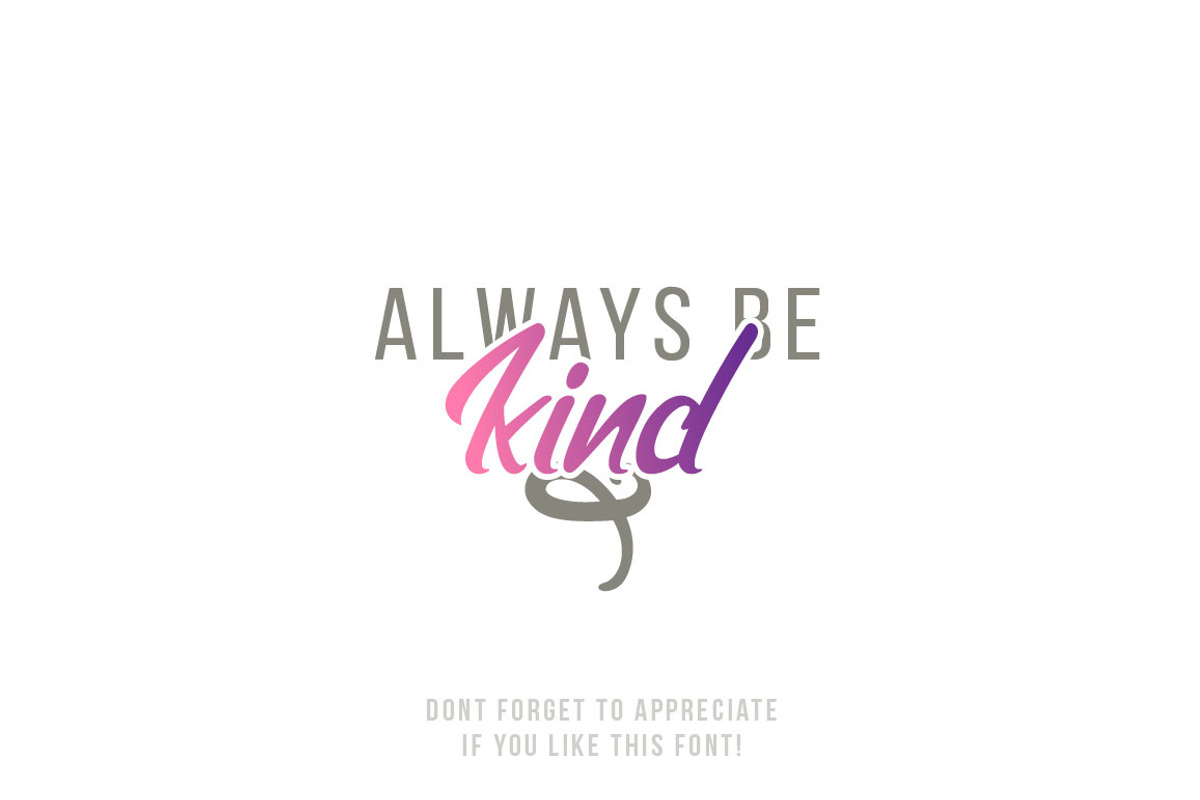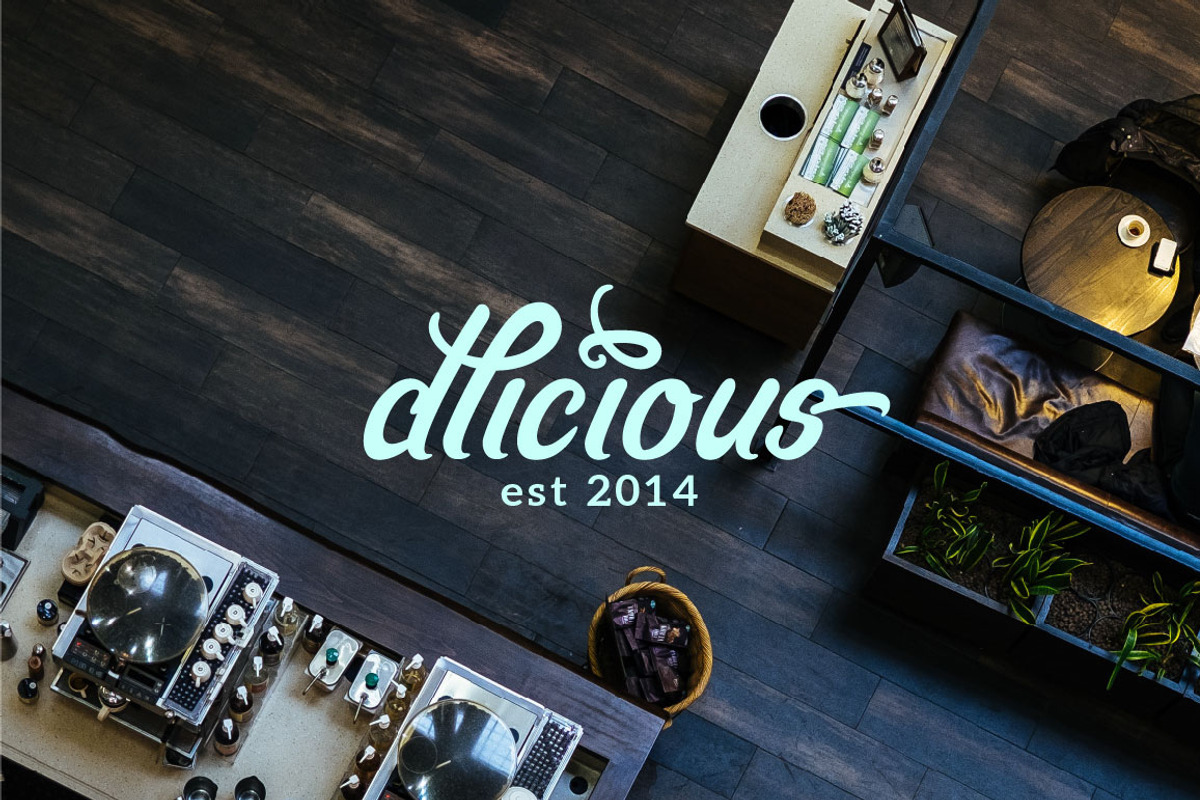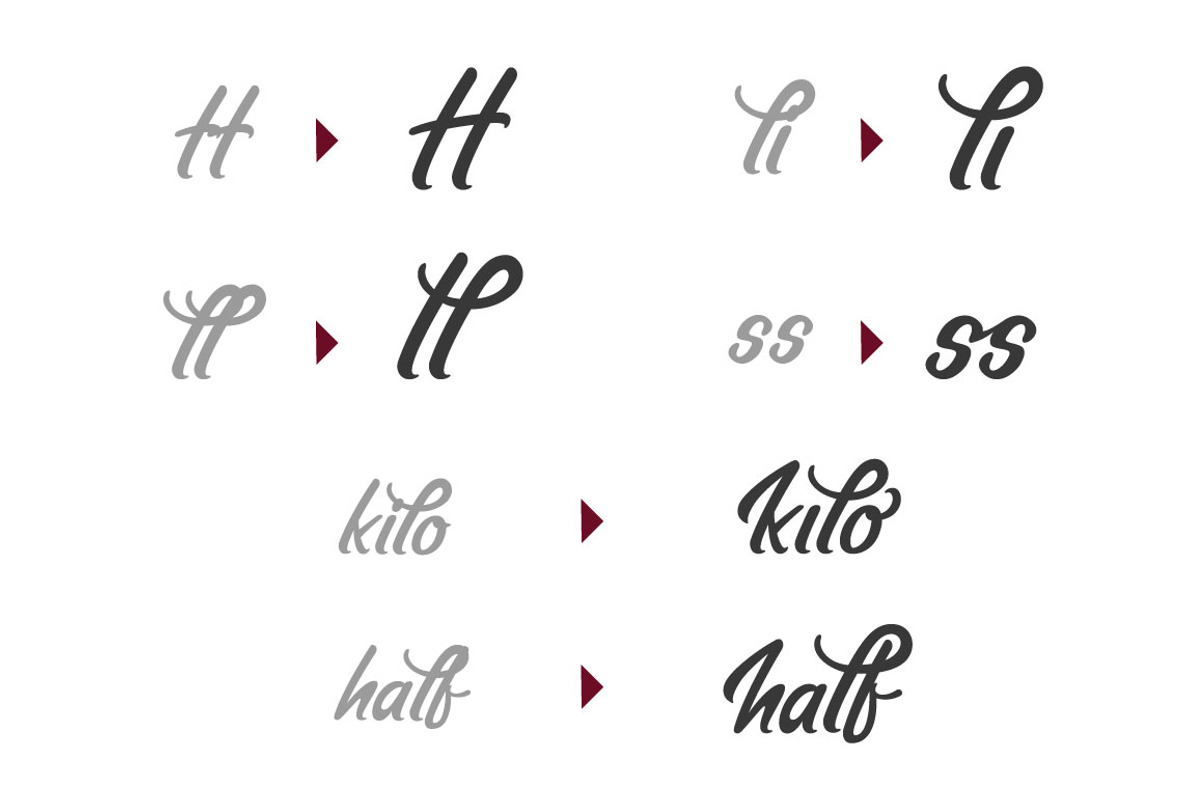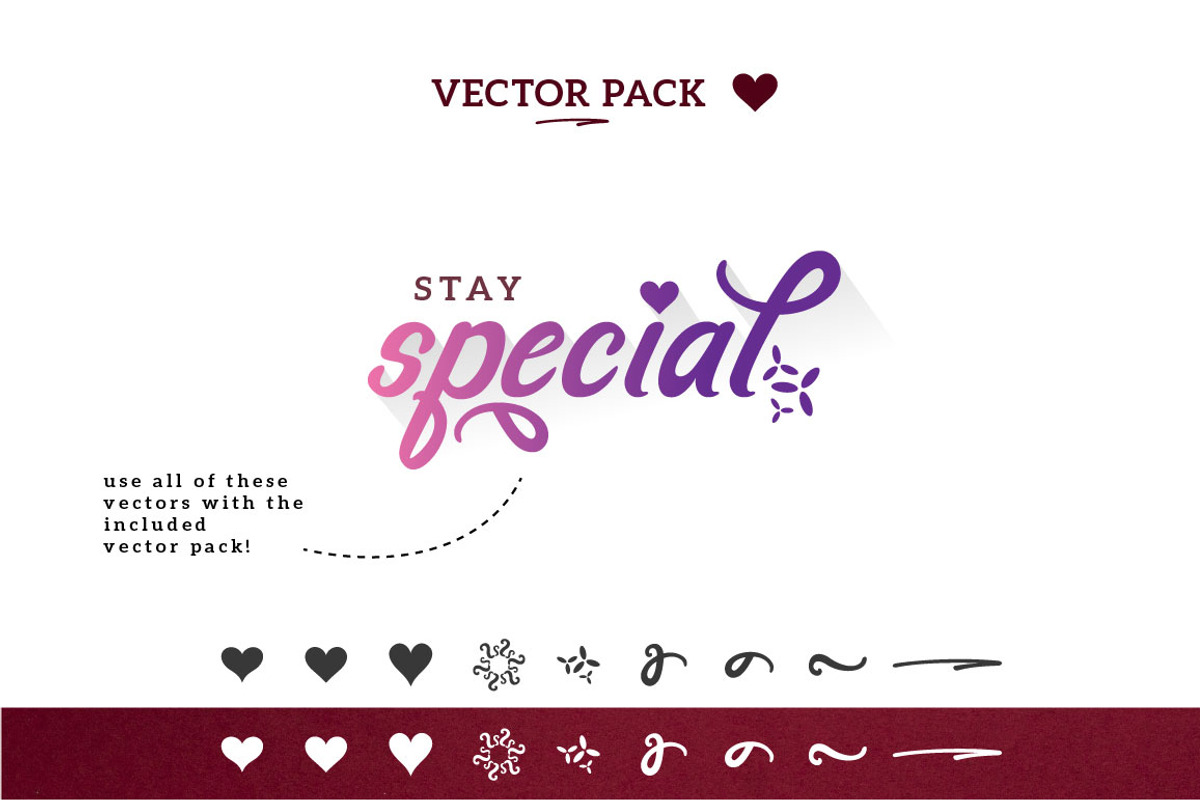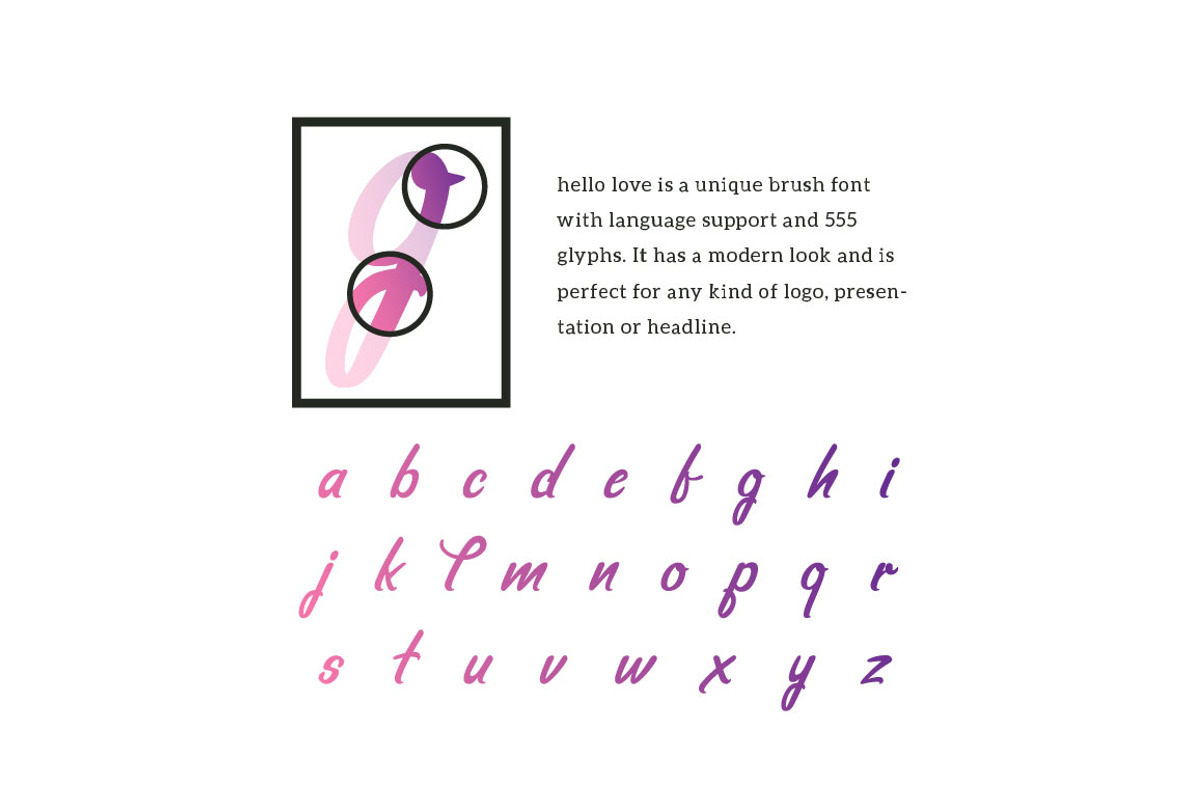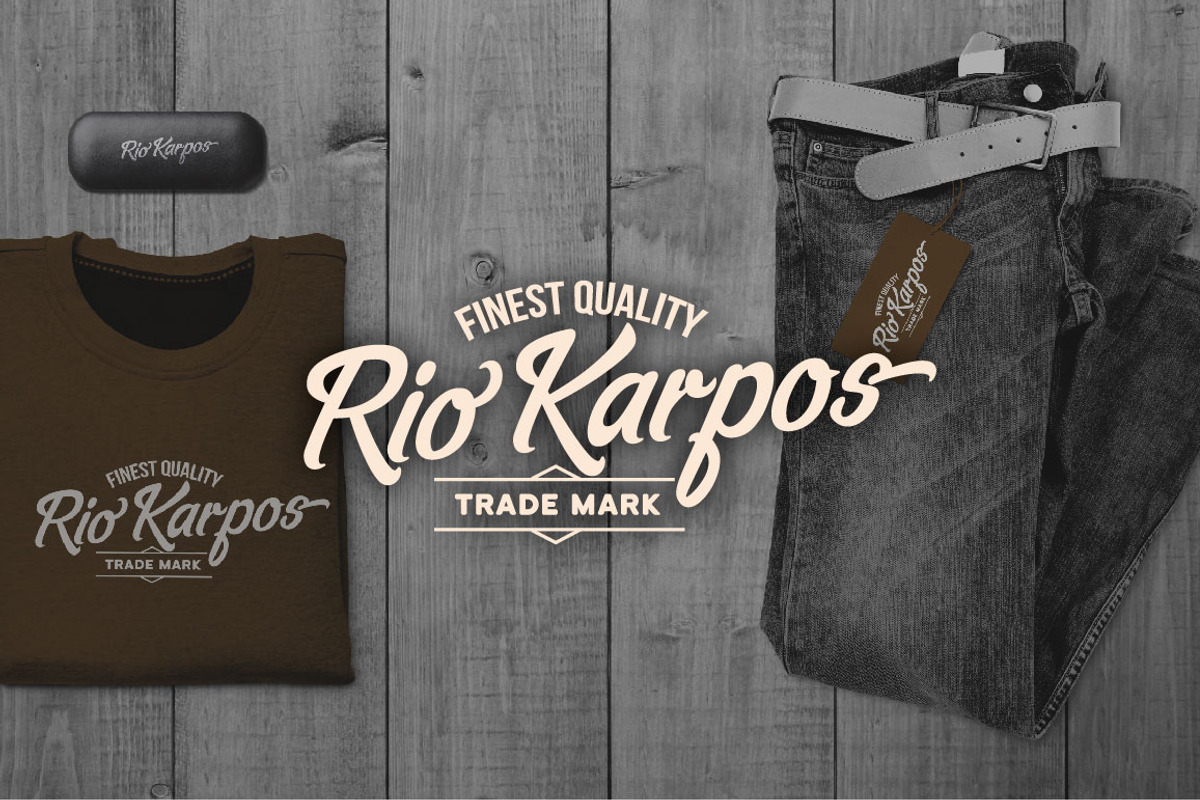
hello love - script font (+bonus)
hello love is a unique brush font with language support and 555 glyphs. It has a very modern look and is perfect for any kind of logo, presentation or headline. You can also try the alternative letters to add some personal touch!
- The full version includes language support, symbols, a cool vector pack and all the ligatures and features for a perfect work.
hello love - script font (+bonus) by Shaped Fonts fits naturally into Branding, posters, packaging, typography.